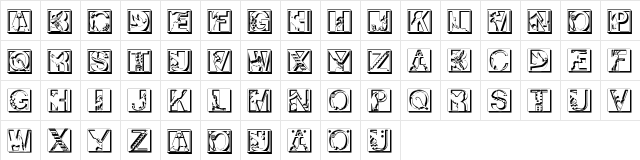
PixCapsShadow Regular
Design Context for PixCapsShadow Typeface
PixCapsShadow brings ornamental detail and strong personality to headlines and identities, where visual impact matters more than quiet functionality.
Font Pairing: Pair with a clean neutral sans-serif for body copy to let PixCapsShadow's character lead without overwhelming the composition.
Pro Tip: Use PixCapsShadow exclusively at display sizes — it was designed to be seen, not read at length. Let a neutral companion handle body copy.